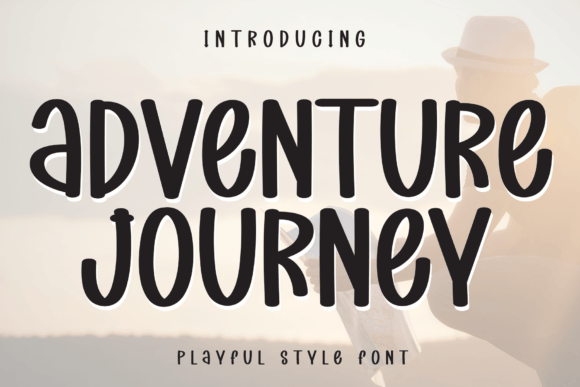
The Adventure Journey Font: A Sweet and Friendly Companion for Your Designs
Have you ever been in the middle of a design project, and suddenly, you’re stuck on finding the perfect font? I certainly have! It was during one of those moments, working on a whimsical craft project for a client, that I stumbled upon the Adventure Journey font. Its sweet and friendly handwritten style instantly captured my heart, and I knew I had to share it with fellow designers and creative hobbyists like you!
A Personal Review: What I Love About Adventure Journey
So, what makes Adventure Journey so special? Here are a few things that I absolutely adore about this font:
• ✨ Natural and Unique Style: Adventure Journey boasts a distinctive, handcrafted feel that sets it apart from more generic fonts.
• ✅ Versatility: Its friendly and approachable vibe makes it suitable for a wide range of projects, from crafting and DIY tutorials to branding and advertising materials.
• 💫 Ease of Use: This font is incredibly easy to work with, even for those who are new to design or typography.
While Adventure Journey is an amazing font, there are a few minor quirks to be aware of:
• 🤔 Legibility at Small Sizes: Like many handwritten fonts, Adventure Journey can become a bit tricky to read when scaled down to very small sizes. It’s best used at larger sizes (around 20-30px or more) for optimal readability.
• ⚠️ Limited Formality: Given its friendly and casual nature, Adventure Journey might not be the best fit for projects requiring a high level of formality or professionalism.
Exploring Alternatives: Similar Fonts to Adventure Journey
If you love Adventure Journey, you might also enjoy these similar fonts:
• Lobster: A more elegant and refined script font, great for projects needing a touch of sophistication.
• Pacifico: A beautiful, modern script with a relaxed vibe, perfect for creative and lifestyle brands.
• Great Vibes: A fun, adventurous script font with a bouncy feel, ideal for designs that require energy and playfulness.
• Carolyna Pro: A stylish and versatile script font with a slightly more formal tone, suitable for a range of design applications.
While the original creator of Adventure Journey remains a bit of a mystery, it’s easy to imagine that they were inspired by the whimsical world of hand-lettering and the joy of crafting something truly unique. Perhaps they wanted to bottle up the essence of adventure and exploration into a font that would inspire others to create and dream big.
What makes Adventure Journey unique? Its natural, handwritten style and friendly vibe make it stand out.
Is Adventure Journey suitable for body text? While it’s best used for headings and short texts, Adventure Journey can be used for longer texts if readability is ensured.
In conclusion, Adventure Journey is a delightful addition to any designer’s toolkit. Its sweet and friendly style, combined with its versatility and ease of use, makes it an excellent choice for a wide range of projects. So go ahead, let your imagination run wild, and see where Adventure Journey takes you! 🌟